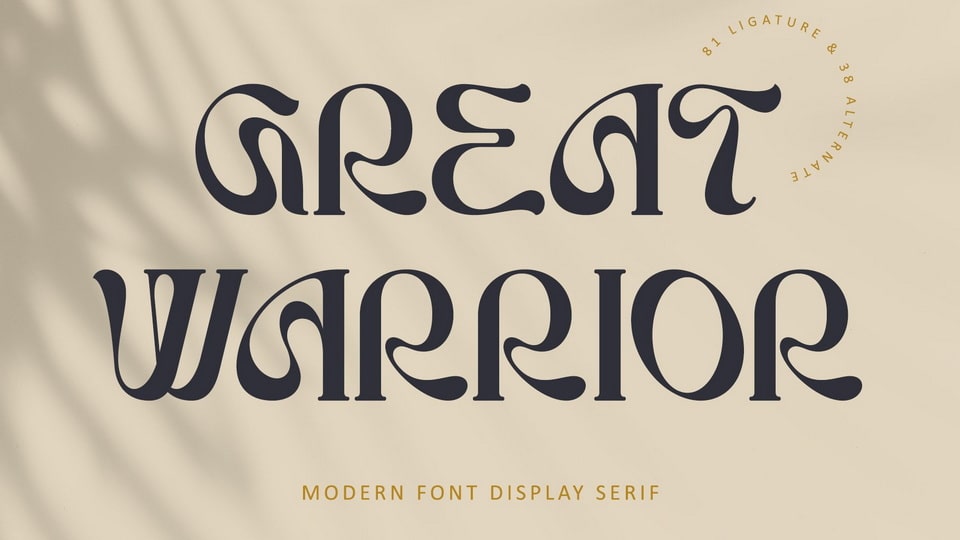
Download Great Warrior font, a sophisticated serif typeface featuring a unique and classy style. With its modern yet vintage look Great Warrior font is suitable for many projects.
Designer: Thomas Aradea